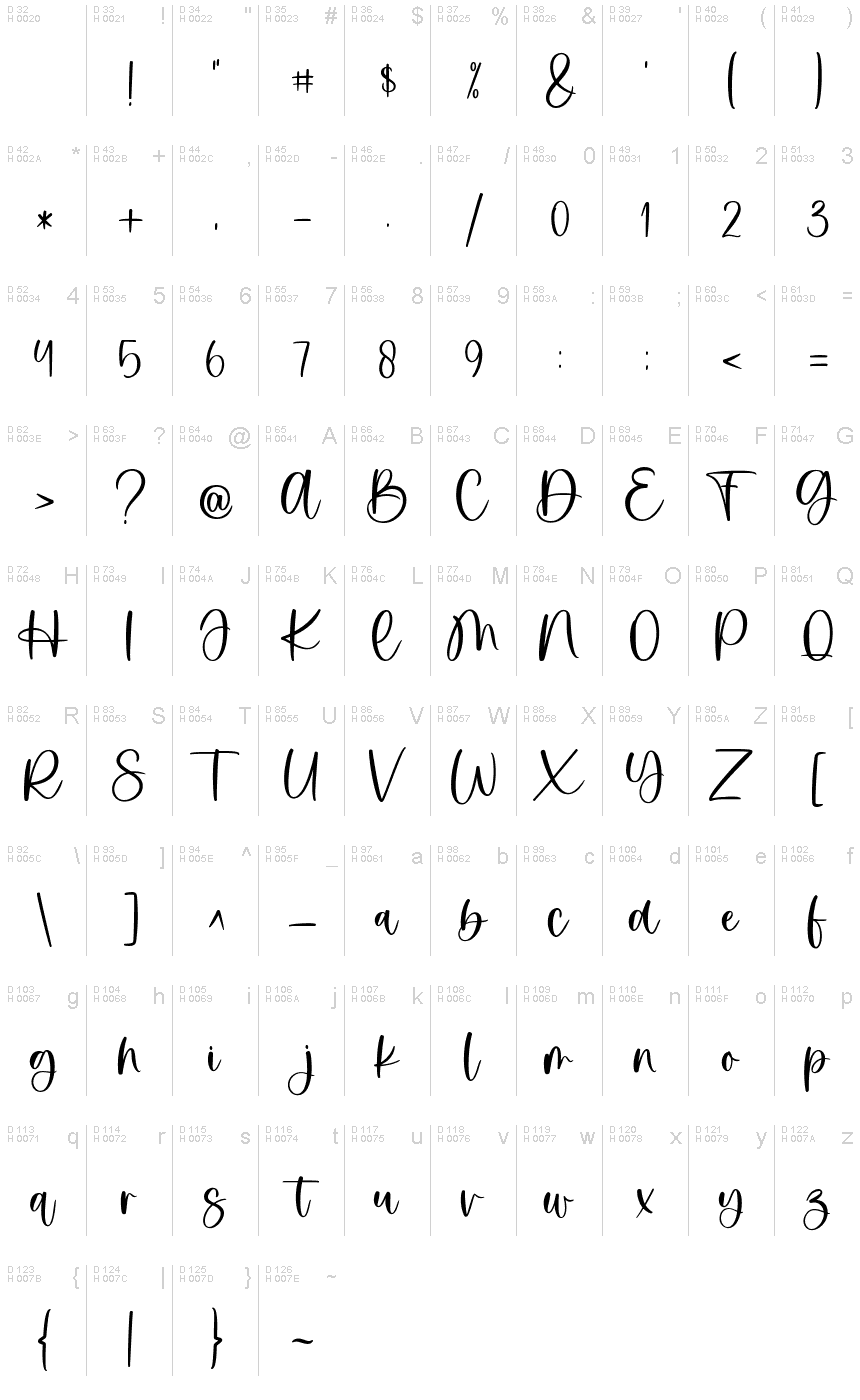
Pinot
Pinot, a charming handwritten font designed by Ramli Setiadi, exudes a whimsical and playful vibe. With its semi-light weight, Pinot strikes the perfect balance between elegance and legibility.
Its cute and quirky style makes it an excellent choice for children's book covers, greeting cards, and invitations. The delicate strokes of Pinot add a touch of warmth to wedding stationery and feminine branding materials. Whether you're designing for a cozy café menu or creating eye-catching social media graphics, this delightful font will bring your projects to life with its unique charm.